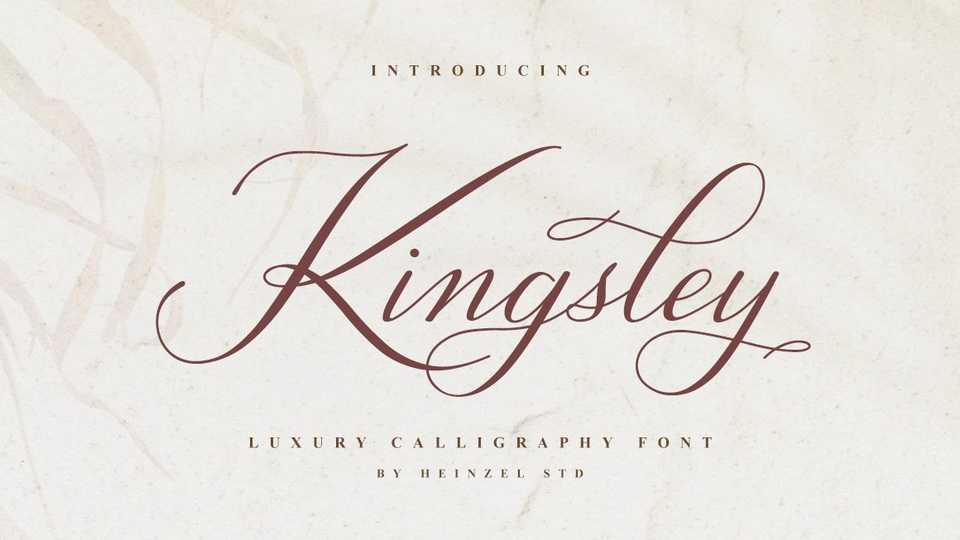
Download Kingsley font, an elegant and flowing handwritten typeface. Kingsley features a varying baseline, smooth lines, gorgeous glyphs and stunning alternates.
Designer: Heinzel Studio